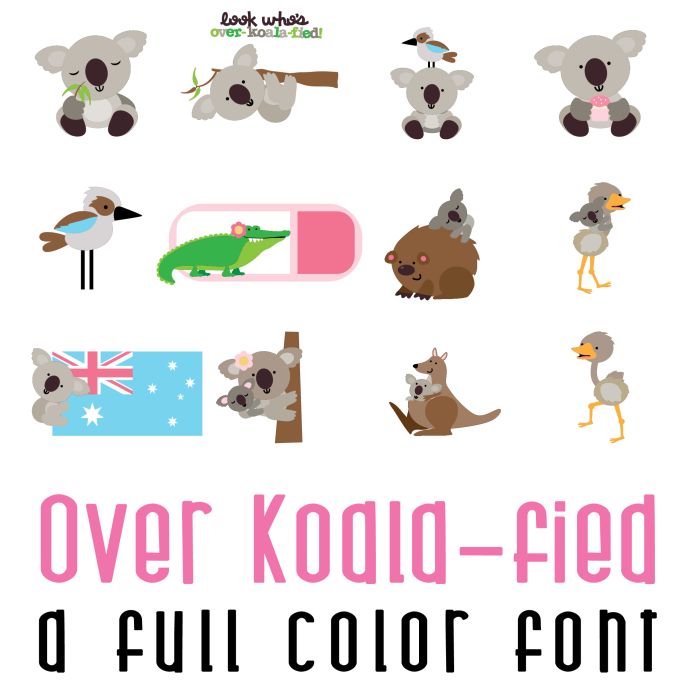
This fun full color font features 26 adorable koalas and animals from down under. Perfect for cards, crafts, gifts, planner stickers, scrap book pages, decor and more!